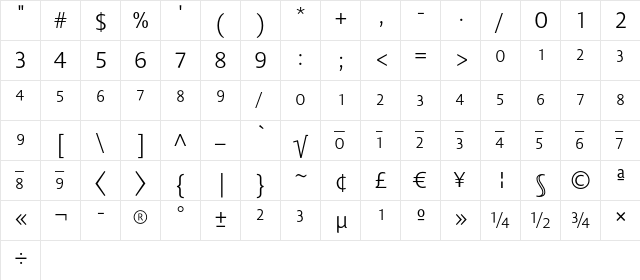
Lisboa Sans Expert Light Regular
Design Context for Lisboa Sans Expert Light Typeface
Lisboa Sans Expert Light takes a measured approach to typography — its balanced proportions and neutral character make it a reliable workhorse for both digital and print work. The delicate stroke weight brings airiness and refinement to layouts.